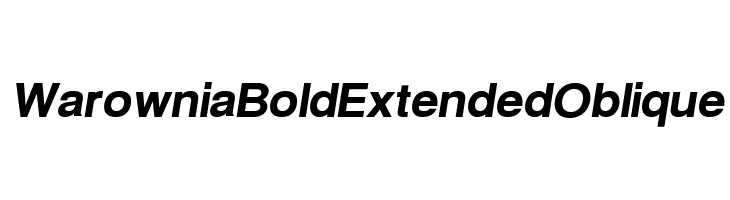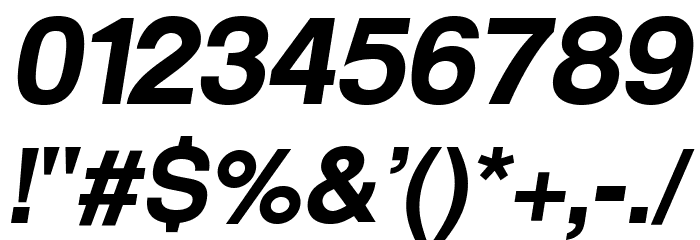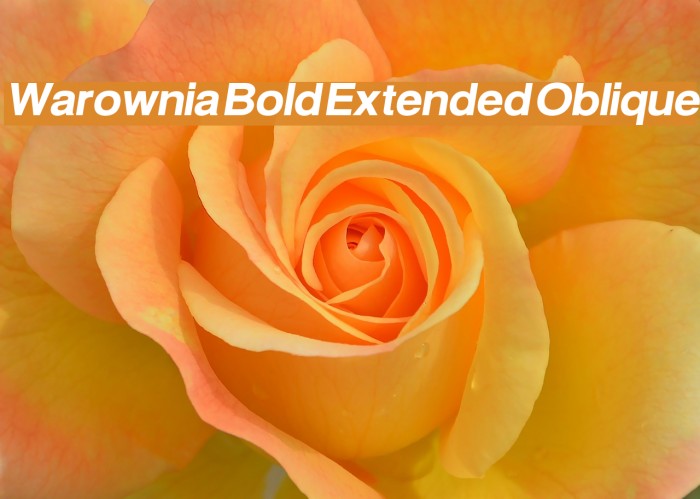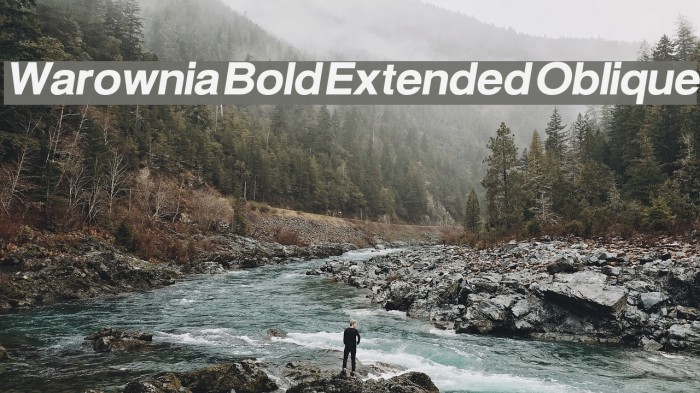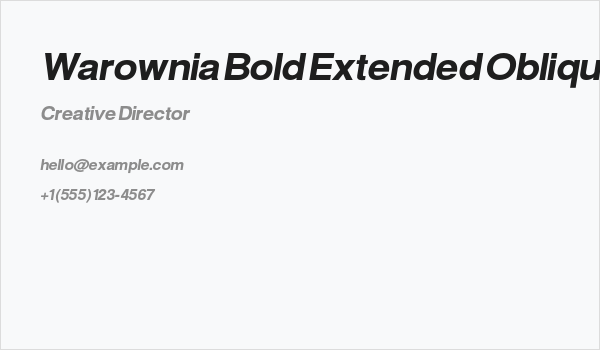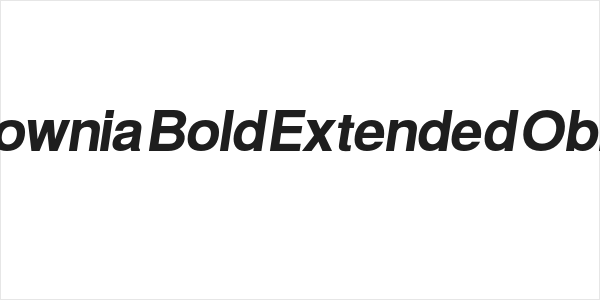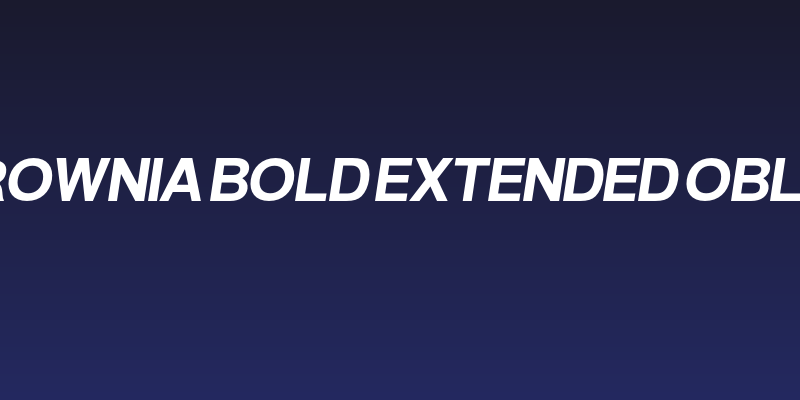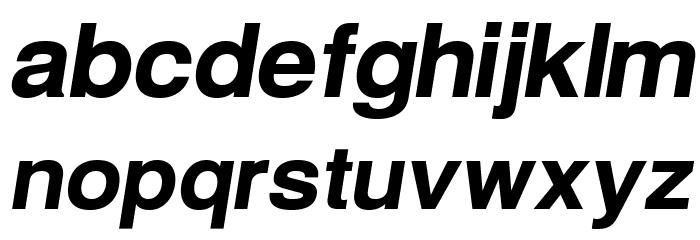
Warownia Bold Extended Oblique Font
Warownia Bold Extended Oblique Description
This font features a bold and extended style with an oblique slant, giving it a dynamic and assertive appearance. The characters are wide and spacious, providing excellent readability even at smaller sizes. The strokes are consistent in thickness, contributing to a uniform and cohesive look. The overall design is modern and sleek, making it suitable for various contemporary applications. The font's extended width allows for a commanding presence, ideal for headlines and attention-grabbing text. Its oblique nature adds a sense of motion and energy, enhancing its appeal for creative and innovative projects.
| Use Case | Headlines, Logos, Advertising |
| Proposed Projects | Ideal for headlines, branding, advertising, and any project requiring a bold and modern typeface. |